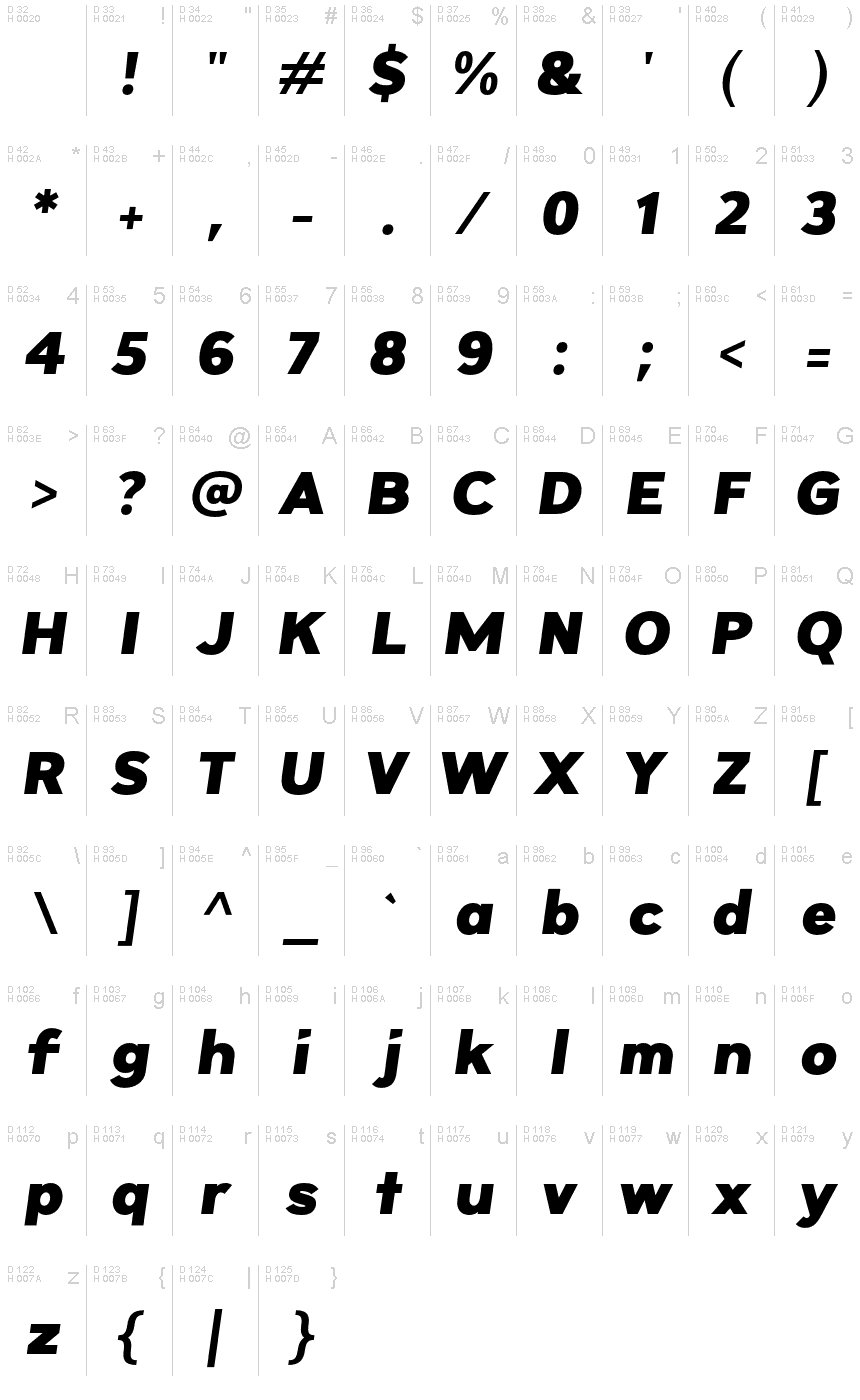
Gelitte-Regular
Gelitte is a bold sans serif font created by Faqih Fawaji, perfect for projects that require a strong and modern look. Whether you're designing a logo, creating promotional materials, or building a website, Gelitte's clean lines and bold weight will make your message stand out. This versatile font can be used for a variety of projects in various industries such as technology, fashion, sports or even food & beverage. With its legibility and simplicity, Gelitte is sure to grab attention and make an impact. Try it today and elevate your designs to the next level!